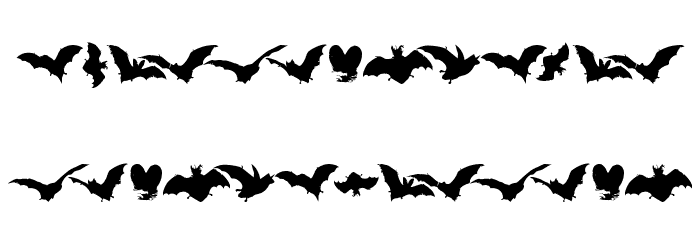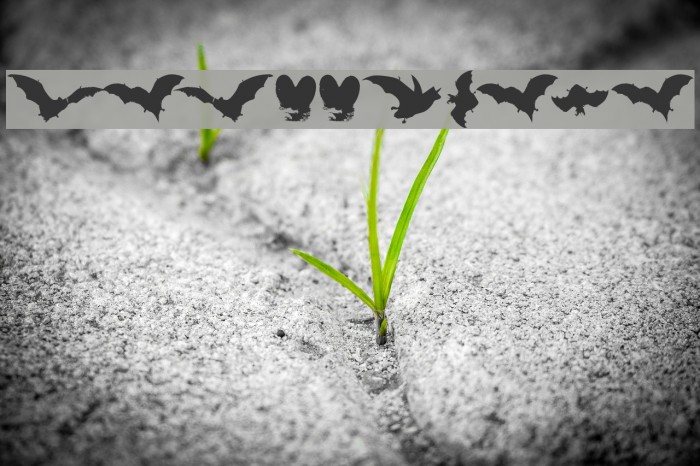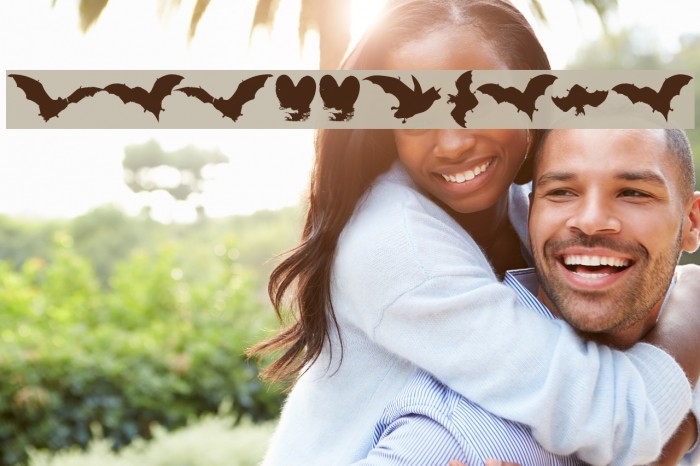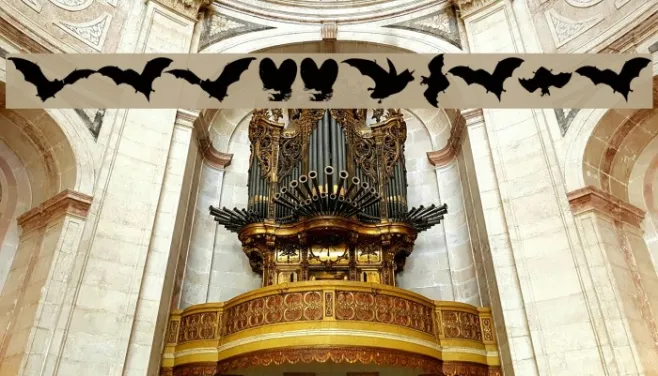
VampyrBats Font
This font features a series of bat silhouettes, each character represented by a unique bat shape. The design is highly decorative, with each bat varying in wing position and body posture, creating a dynamic and whimsical appearance. The silhouettes are bold and striking, making them ideal for thematic or Halloween-related projects. The font lacks traditional letterforms, focusing instead on the artistic representation of bats, which adds a playful and eerie touch to any design. The consistent use of black silhouettes ensures a cohesive look across all characters.
A decorative font featuring unique bat silhouettes for each character.
- Proposed Projects: Ideal for Halloween-themed designs, party invitations, posters, and decorative banners.
- Use Case: Logos, Headlines, Thematic Designs